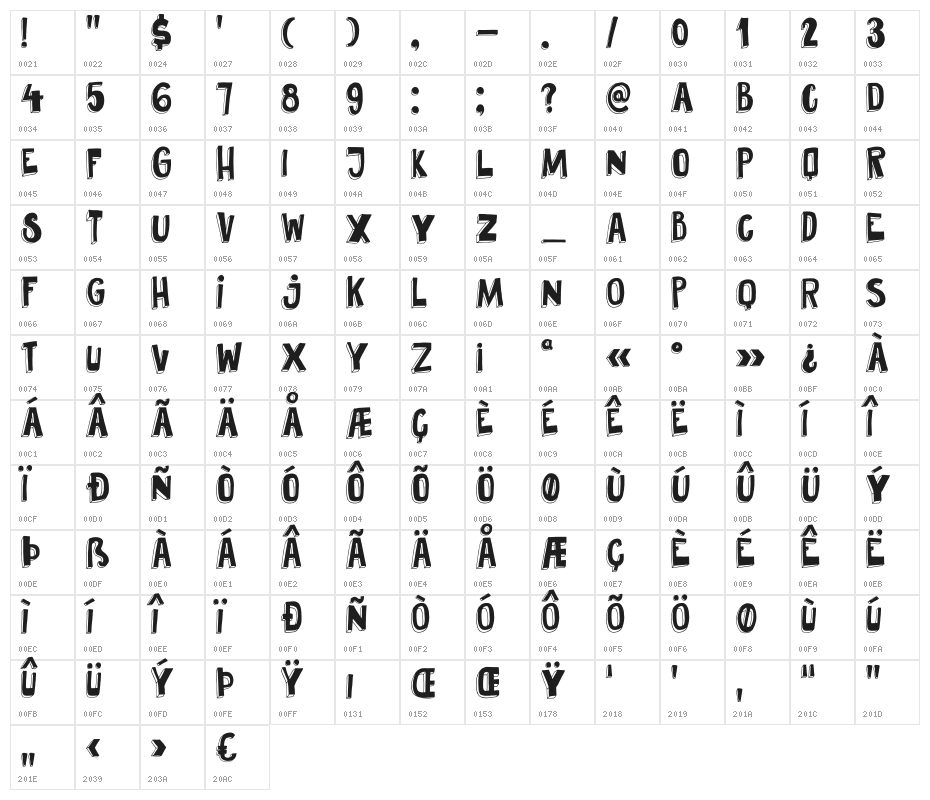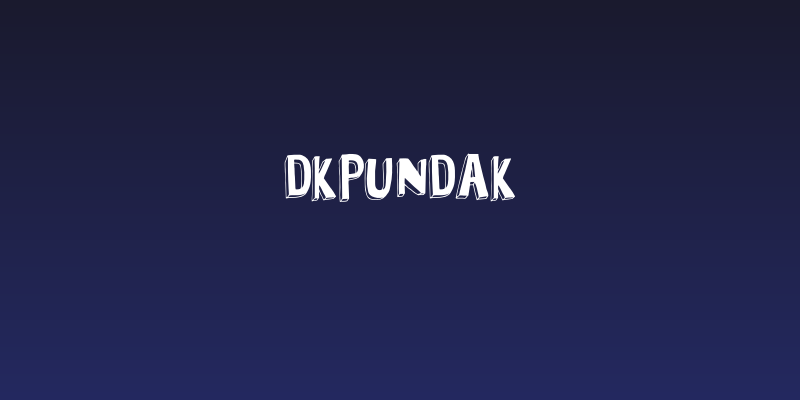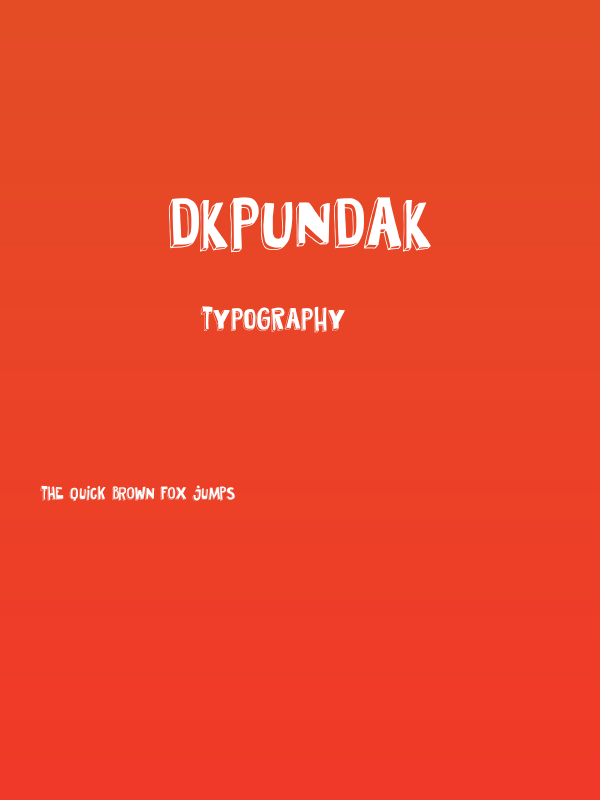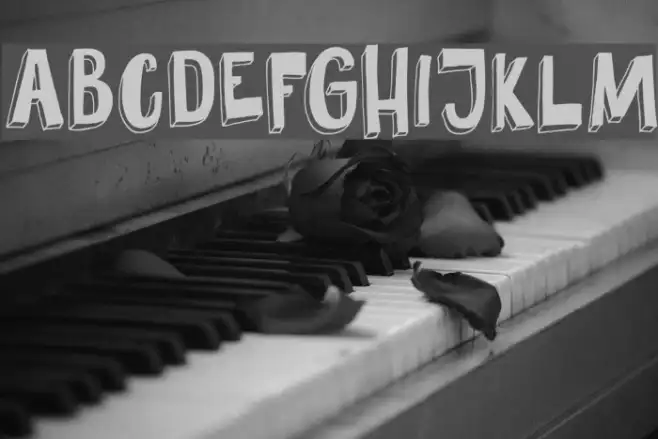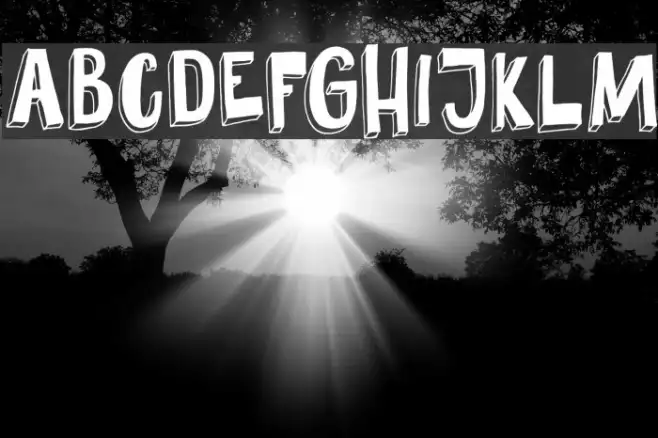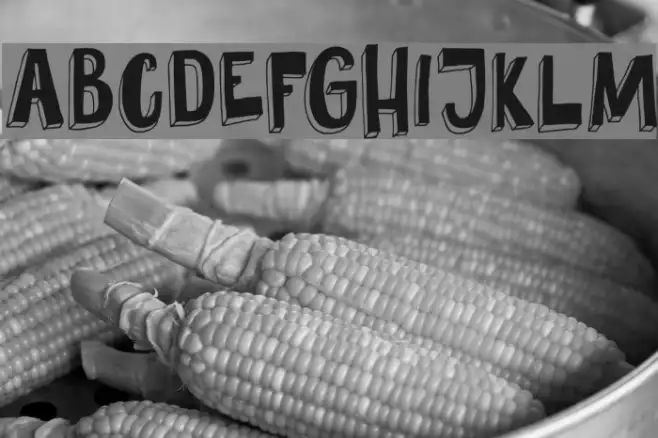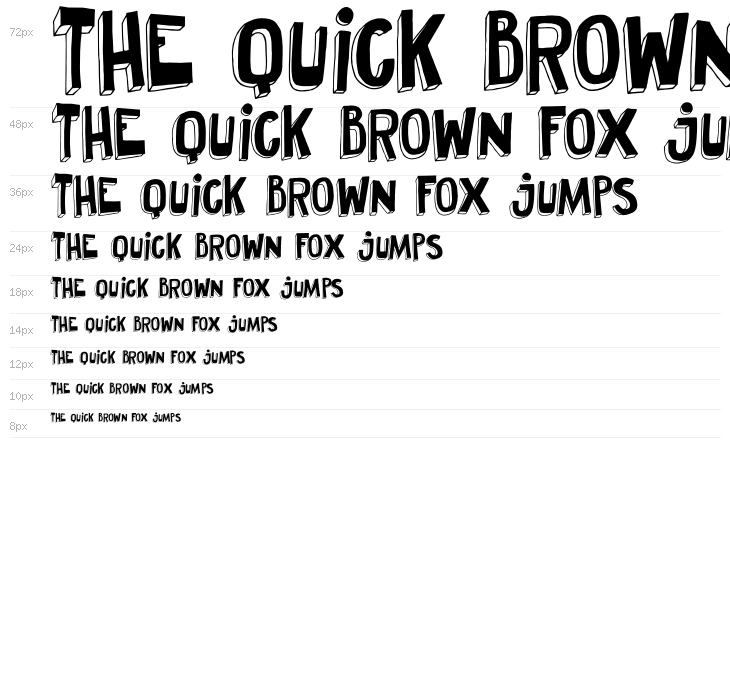
DKPundak Font
DKPundak Description
This font features a bold and playful 3D effect, with each character having a shadow that gives it a sense of depth and dimension. The letters are uppercase and have a hand-drawn, cartoonish style, making them stand out with a fun and dynamic appearance. The strokes are thick and consistent, contributing to a strong visual impact. The numbers and special characters follow the same playful design, ensuring a cohesive look across all elements. This font is ideal for projects that require a lively and engaging aesthetic.
| Overall Style | Playful, Cartoonish |
| Use Case | Headlines, Posters, Branding |
| Proposed Projects | Perfect for children's book covers, comic strips, playful branding, and eye-catching posters. |